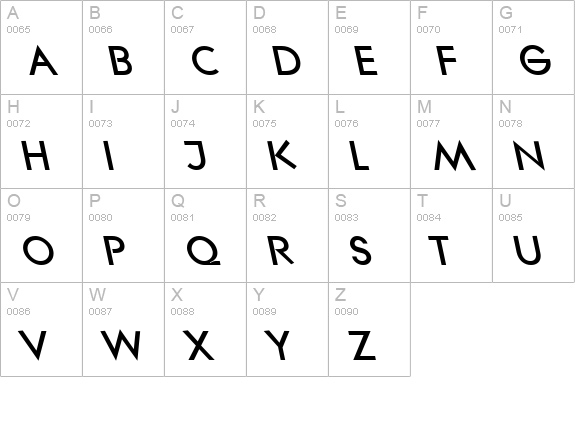
LitheLeftyExtrabold Regular Font Details
LitheLeftyExtrabold Regular is the standard, neutral variant in the LitheLeftyExtrabold typeface family \xE2\x80\x94 well suited to general body text, paragraphs, and standard typographic work.
LitheLeftyExtrabold Regular font is a stunning display typeface that exudes elegance and sophistication. Its sleek and modern design makes it perfect for creating eye-catching headlines, posters, and branding materials. With its bold and striking appearance, LitheLeftyExtrabold commands attention and leaves a lasting impression on viewers. This versatile font is ideal for a wide range of design projects, from fashion magazines to luxury brands. Its clean lines and unique letterforms add a touch of style and personality to any text. Whether you're designing a logo for a high-end boutique or creating a bold statement piece for a marketing campaign, LitheLeftyExtrabold is sure to make a strong impact. And the best part is, LitheLeftyExtrabold Regular font is available for free download at FontsMarket.com. So you can easily access this premium font and elevate your design projects without any cost. Don't miss out on the opportunity to enhance your creations with the sophisticated charm of LitheLeftyExtrabold Regular font.